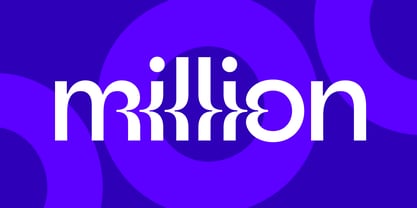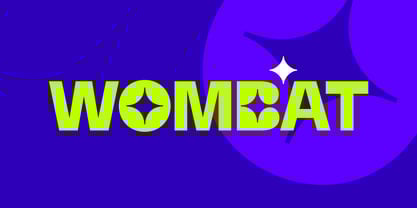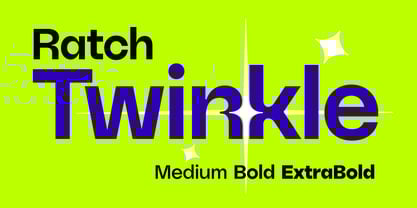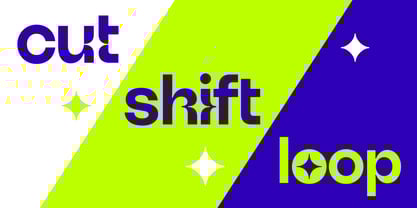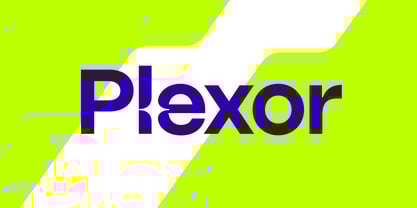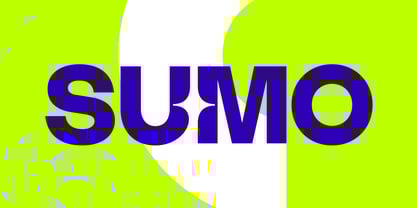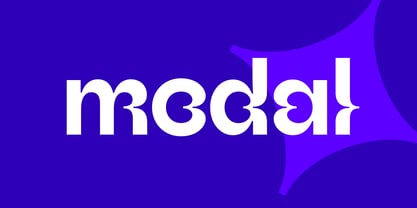
Ratch Twinkle
by Roman Melikhov
The Ratch Twinkle Font Family was designed by Roman Melikhov and published by Roman Melikhov. Ratch Twinkle contains 3 styles and family package options. More about this family
Ratch Twinkle is a modern geometric grotesk typeface available in three weights: Medium, Bold, and ExtraBold. Designed as a companion to the Ratch font family, it features a wide range of alternate characters that allow for highly effective and personalized lettering.
About Roman Melikhov
Roman Melikhov, a type designer with vast experience in logo creation, channels the insights gained from his logo work into his font designs. His process involves unexpected creative solutions and offbeat methodologies. He prioritizes originality and identity, enabling him to infuse even minimalist typefaces with unparalleled uniqueness. Meticulous attention to detail during font production ensures the utmost accuracy in the final outcome.